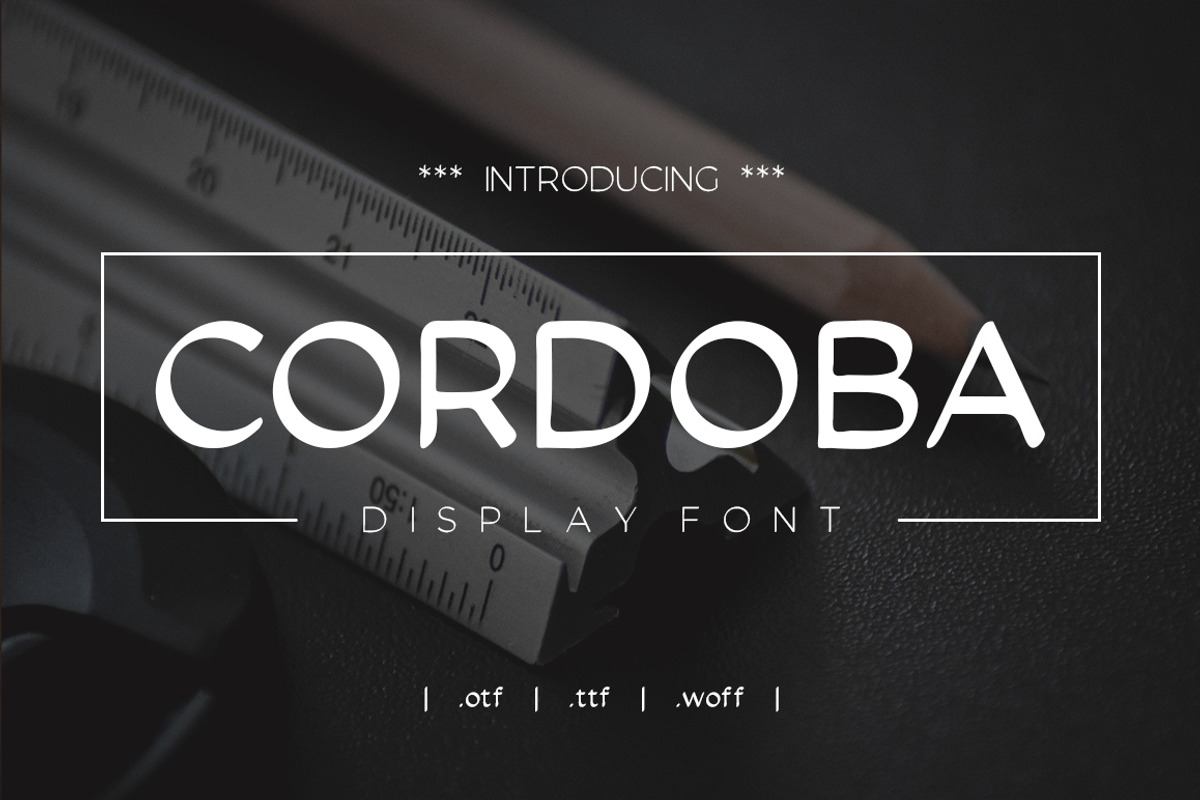
Cordoba Regular and Bold Font Free Download
Cordoba Regular and Bold Font Free Download is a versatile and elegant typeface designed to combine professionalism with style. Whether in its regular or bold weight, Cordoba offers a clean, modern feel that is perfect for branding, logos, editorial design, headlines, and business communication.
Cordoba Regular and Bold Font Free Download brings balance and clarity to your typography. The regular weight is ideal for long-form text and body copy, while the bold version adds impact and strength to headlines, titles, and logos. Its refined letterforms make it a great choice for high-end branding and modern marketing materials.